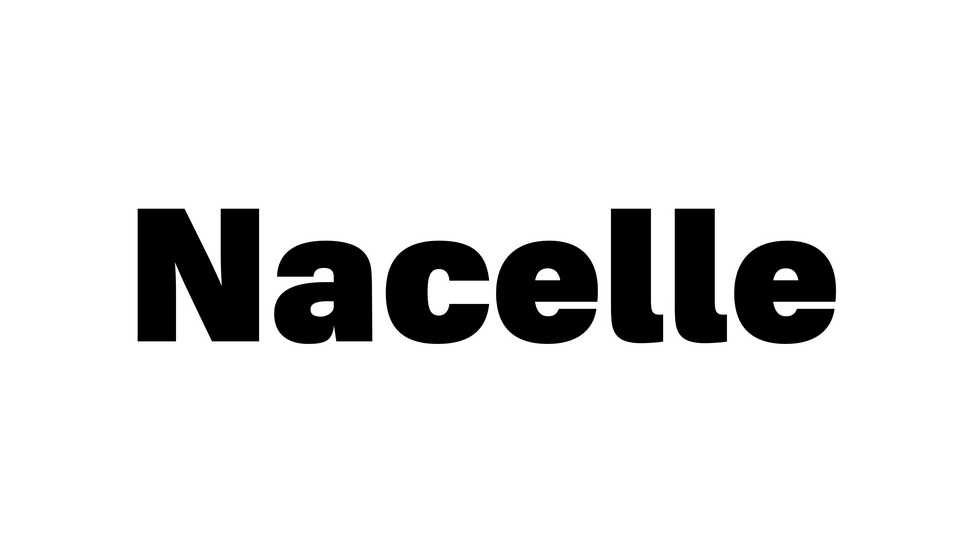
Download Nacelle font, a neo-grotesque sans serif typeface. Nacelle’s basic concept is “creating a neo-grotesque that is easy to see and identify on the UI” with the metrics and details adjusted to create a more natural shape.
Designer: Sora Sagano